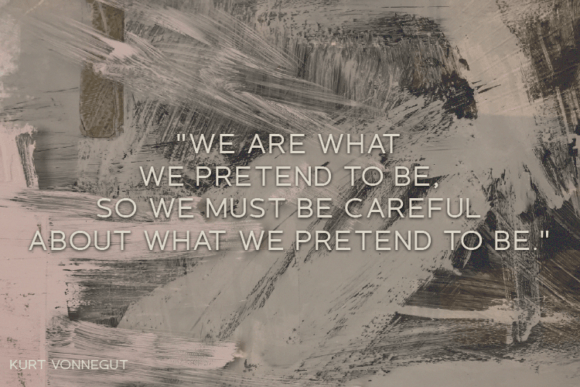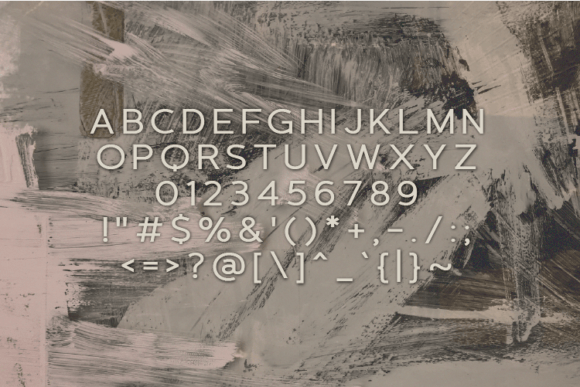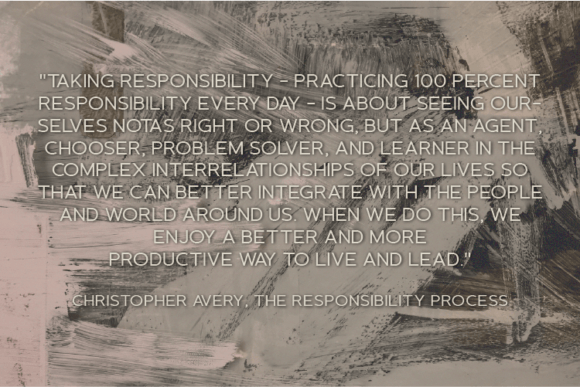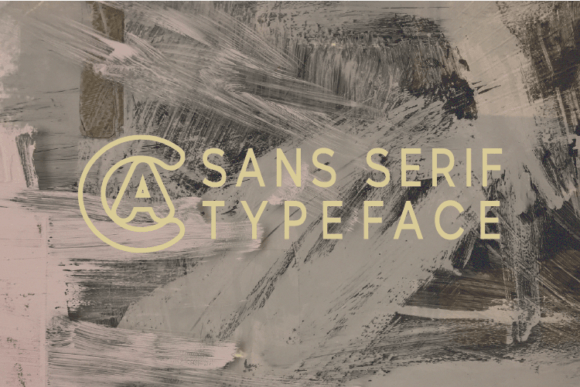
Introducing Brownice Font: Elevate Your Designs with Modern Elegance
In the world of typography, a font can make or break a design. It’s the foundation upon which creativity is built, and the right choice can elevate a project from ordinary to extraordinary. For designers and crafters seeking a modern, classy sans serif typeface that exudes versatility and sophistication, look no further than Brownice Font. This stunning font is perfect for a wide range of applications, including logos, weddings, invitations, quotes, advertisements, print, magazines, and more!
Unleash Your Creativity with Brownice
Brownice Font is a masterpiece of modern typography, designed to inspire creativity and bring a touch of elegance to any project. Its clean lines, precise curves, and balanced proportions make it an ideal choice for designers seeking a font that is both stylish and legible. Whether you’re working on a logo, a wedding invitation, or a magazine spread, Brownice Font is the perfect companion to help you achieve your design goals.
Key Features of Brownice Font
- Modern Sans Serif Design: Brownice Font boasts a sleek, contemporary design that is perfect for projects that demand a fresh, modern look.
- Extremely Versatile: From logos and branding to weddings, invitations, and more, Brownice Font adapts seamlessly to any design need.
- Highly Legible: Its clear and precise letterforms ensure that your message is communicated effectively, making it ideal for both print and digital applications.
- Elegant and Classy: Add a touch of sophistication to your designs with Brownice Font’s inherently elegant and classy aesthetic.
Brownice Font’s versatility is one of its most compelling features. Here are just a few examples of how you can use this incredible font:
- Logos and Branding: Create a lasting impression with a logo that stands out. Brownice Font’s modern design makes it perfect for startups and established brands looking to refresh their image.
- Weddings and Invitations: Add a touch of elegance to your wedding invitations, save-the-dates, and other stationery with Brownice Font’s classy aesthetic.
- Advertisements and Marketing: Make your advertisements stand out with a font that grabs attention and communicates your message clearly.
- Print and Magazines: Elevate your magazine spreads, brochures, and flyers with Brownice Font’s sophisticated and modern look.
Why Choose Brownice Font?
In a sea of fonts, Brownice stands out for its unique blend of modernity, elegance, and versatility. Here are a few reasons why designers and crafters are choosing Brownice Font for their projects:
- Unique Design: Brownice Font offers a fresh perspective on sans serif typography, making it a great choice for designers looking for something new and exciting.